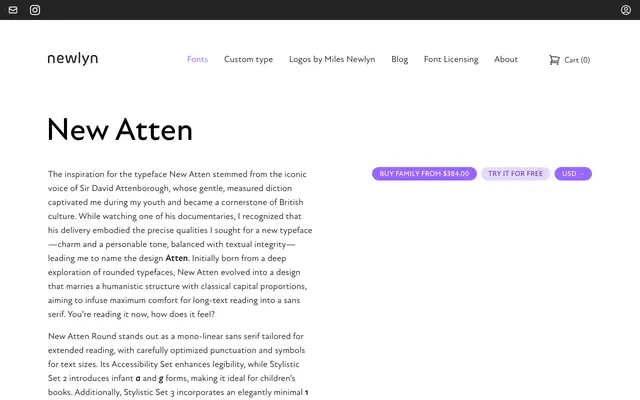
New Atten Italic
A humanist sans serif with rounded variant named in tribute to Sir David Attenborough, designed for extended reading with accessibility features and alternate letterforms for children's books.
Combining a humanistic structure with classical capital proportions, New Atten is built for comfortable long-text reading across five weights from Book to Extra Bold, each with an italic. The Round subfamily takes a mono-linear approach with carefully tuned punctuation for text sizes, while an Accessibility Set improves legibility and Stylistic Set 2 offers infant a and g forms suited to children's publishing. A minimal numeral 1 drawn from Edward Johnston's London Underground lettering appears via Stylistic Set 3.
New Atten is described explicitly as combining a humanistic structure with classical capital proportions, making it a humanist sans serif. Its mono-linear rounded variant and text-optimised spacing reinforce this classification.